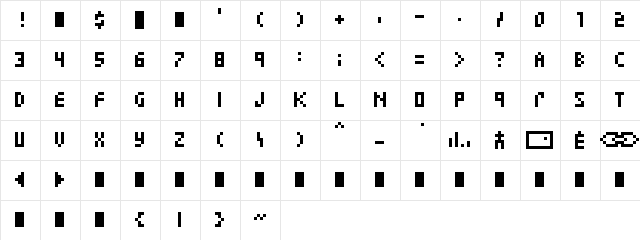
zuptype_ccc Regular
| Designer | cozkay |
Design Context for zuptype_ccc Typeface
zuptype_ccc is a composed and adaptable typeface that performs quietly and consistently across a wide range of design contexts.